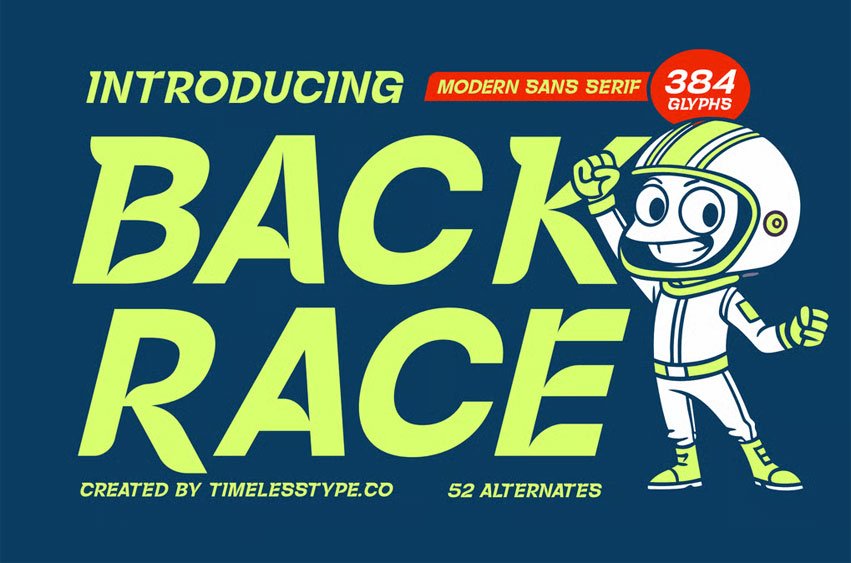
Back Race Font is a modern sans serif display font with bold, agile letterforms and a dynamic racing-inspired aesthetic. Its energetic strokes and strong geometric structure make it perfect for sports branding, gaming visuals, posters, kids’ products, racing themes, merchandise, and high-impact headlines. The font brings an exciting, fast-paced personality that instantly adds motion and fun to any design.
Featuring 52 alternates and 384 glyphs, Back Race gives designers extensive freedom to create expressive titles, sporty wordmarks, stylized compositions, and action-packed layouts. Its confident curves, sharp forms, and playful character make it an ideal choice for creative projects that need power, speed, and a fresh modern vibe.